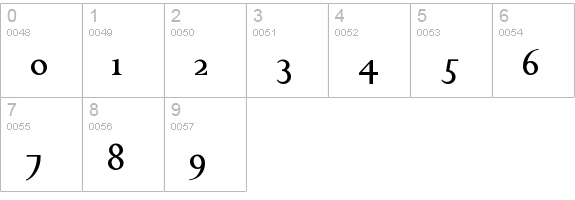
ChanticleerRoman Font Details
ChanticleerRoman font is a modern and stylish typeface that exudes sophistication and elegance. Its sleek lines and unique curves make it perfect for a variety of design projects, from branding to editorial layouts. This versatile font is sure to make your text stand out and leave a lasting impression on your audience. Best of all, ChanticleerRoman font is available for free download at FontsMarket.com. This means you can easily access this high-quality typeface without any cost, making it a valuable addition to your font collection. Don't miss out on the opportunity to enhance your designs with ChanticleerRoman font today!